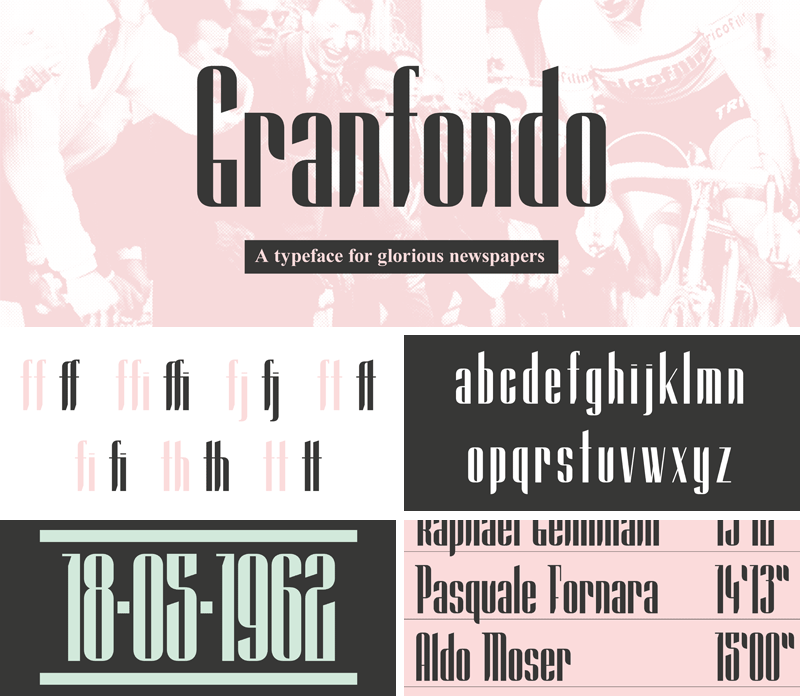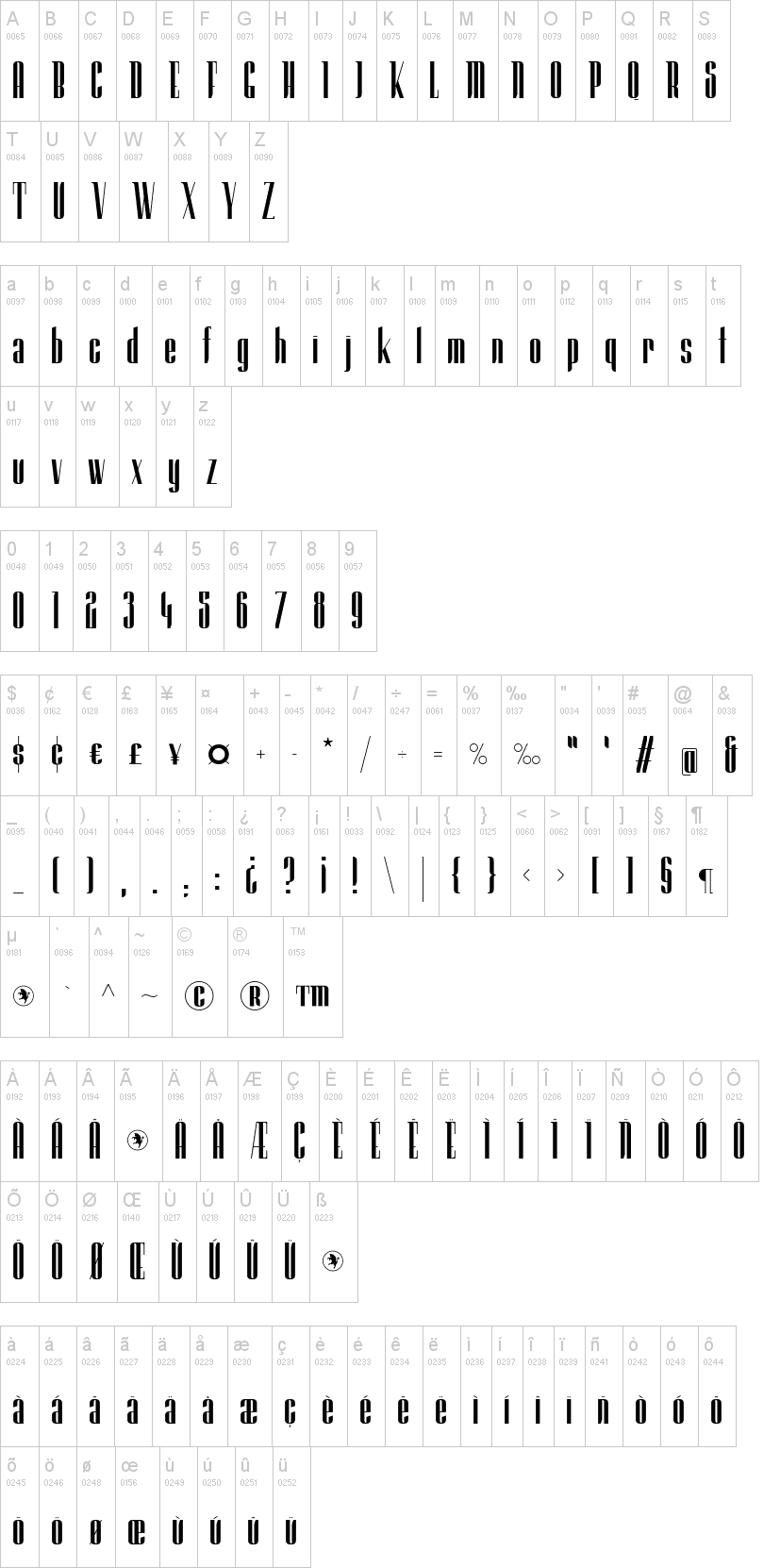
Note of the authorGranfondo is a modular typeface designed for glorious newspaper headlines, echoing the heritage of the biggest heroes in sports history.